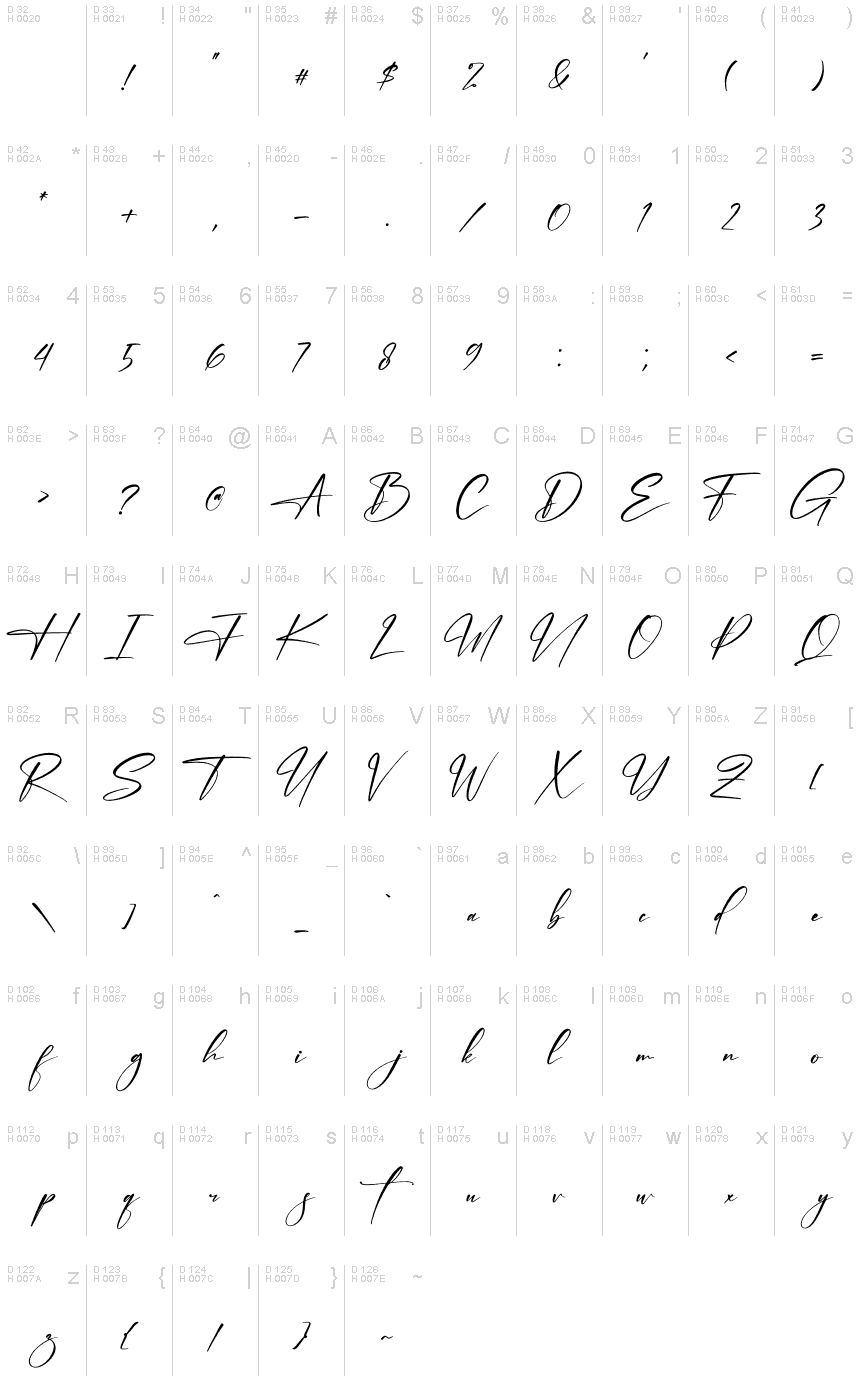
Randela Smitha, created by Letterena Studios, is a stunning semi-light handwritten font that mimics a beautiful signature style. This modern signature font adds a touch of elegance and sophistication to any project it graces.
With its unique handcrafted feel, Randela Smitha is perfect for a wide range of creative endeavors. Use it to create captivating logos and branding projects that leave a lasting impression. Elevate homeware designs and product packaging with its graceful strokes and personalized touch. Let Randela Smitha infuse mugs, quotes, posters, shopping bags, and t-shirts with its charming script taste.
Book covers come alive with this enchanting font while name cards and invitation cards exude refined elegance. Add a touch of class to greeting cards and labels or make your photography stand out with the delicate flair of Randela Smitha. Watermarks become works of art when adorned with this exquisite font.
Whether you are designing for special events or working on any other lovely project that requires a beautiful script font, Randela Smitha is the perfect choice to bring your vision to life in an effortlessly stylish way.